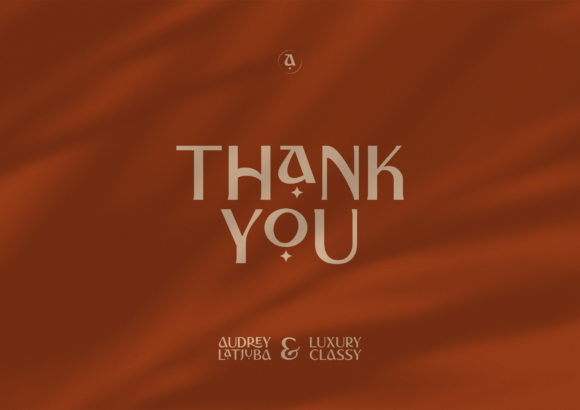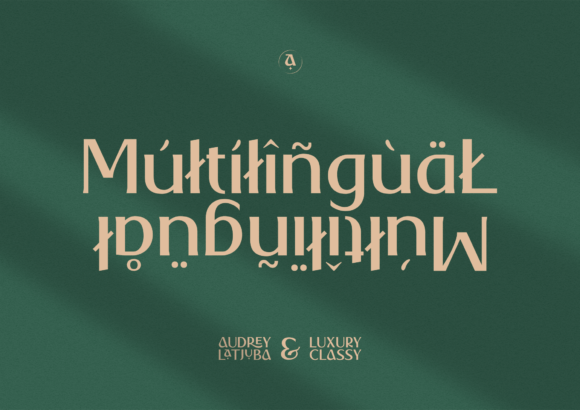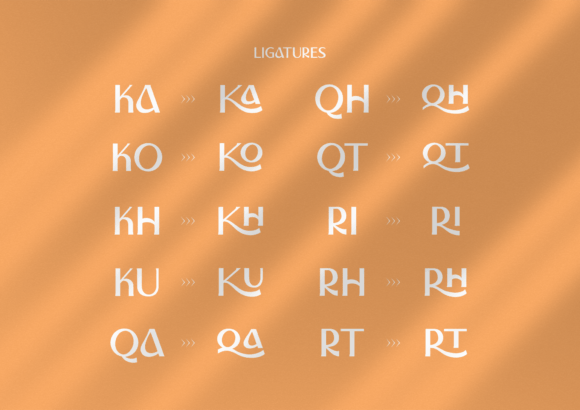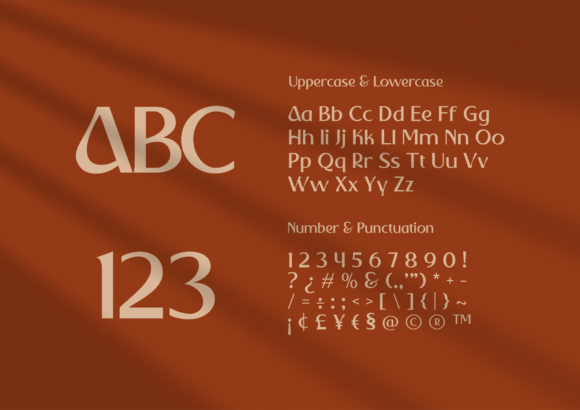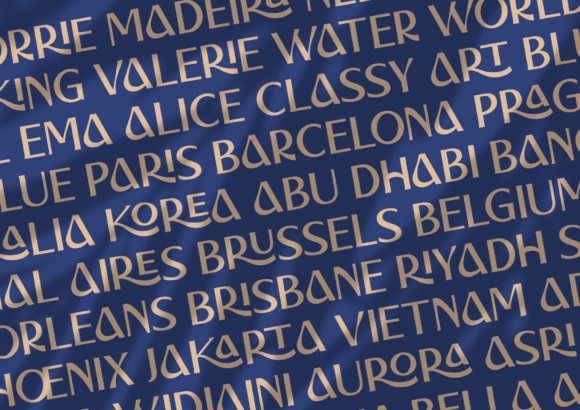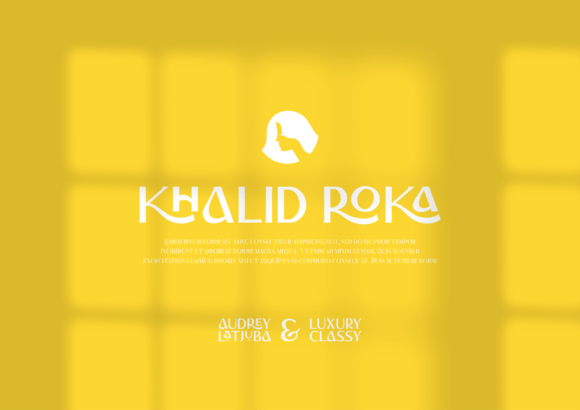
Audrey Latjuba Font: Elevate Your Designs with Elegance and Sophistication
In the world of typography, a font can make or break a design. For designers and crafters seeking to add a touch of class and sophistication to their projects, the Audrey Latjuba font is an exceptional choice. This stunning display serif font boasts an impressive array of features, making it perfect for a wide range of applications, from logos and social media posts to product packaging and designs.
What is Audrey Latjuba Font?
Audrey Latjuba is a classy display serif font that exudes elegance and refinement. With over 270 characters, this font includes uppercase and lowercase characters, multilingual support, alternates, and most common characters, ensuring that you have everything you need to create beautiful, professional-looking designs.
Key Features of Audrey Latjuba Font
- Extensive Character Set: With 270+ characters, Audrey Latjuba offers a wide range of options for your design needs.
- Multilingual Support: Create designs that cater to a global audience with support for multiple languages.
- PUA Encoding: Enjoy easy access to all the amazing glyphs and ligatures, making it simple to customize your designs.
- Alternates and Common Characters: Add variety to your designs with alternate characters and common characters.
Perfect for Various Projects
Audrey Latjuba’s versatility makes it an excellent choice for a variety of projects, including:
- Logos: Create a lasting impression with a sophisticated logo that showcases your brand’s personality.
- Social Media Posts: Elevate your social media presence with eye-catching posts that reflect your brand’s style.
- Product Packaging: Add a touch of elegance to your product packaging and make it stand out on store shelves.
- Product Designs: Incorporate Audrey Latjuba into your product designs, such as business cards, brochures, and more.
Why Choose Audrey Latjuba Font?
With so many fonts available, why choose Audrey Latjuba? Here are just a few reasons:
- Unique and Memorable: Audrey Latjuba’s distinctive style ensures that your designs will be remembered.
- High-Quality: This font is crafted with attention to detail, guaranteeing a professional finish.
- Easy to Use: With PUA encoding, accessing glyphs and ligatures is a breeze, making it simple to get started with your design.
- Support for Multiple Languages: Cater to a global audience with a font that supports multiple languages.
Tips for Using Audrey Latjuba Font
To get the most out of Audrey Latjuba, consider the following tips:
- Experiment with Sizes: Audrey Latjuba looks stunning in various sizes, so don’t be afraid to experiment.
- Pair with Other Fonts: Combine Audrey Latjuba with complementary fonts to create visually appealing designs.
- Play with Ligatures: Take advantage of the font’s ligatures to add a touch of sophistication to your designs.
Audrey Latjuba font is an exceptional choice for designers and crafters seeking to add a touch of elegance and sophistication to their projects. With its extensive character set, multilingual support, and PUA encoding, this font offers endless possibilities for creative expression. Whether you’re designing logos, social media posts, product packaging, or product designs, Audrey Latjuba is sure to elevate your work to the next level.